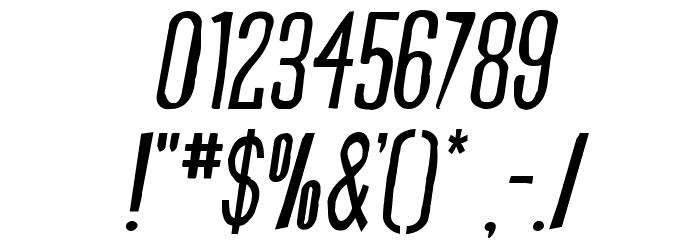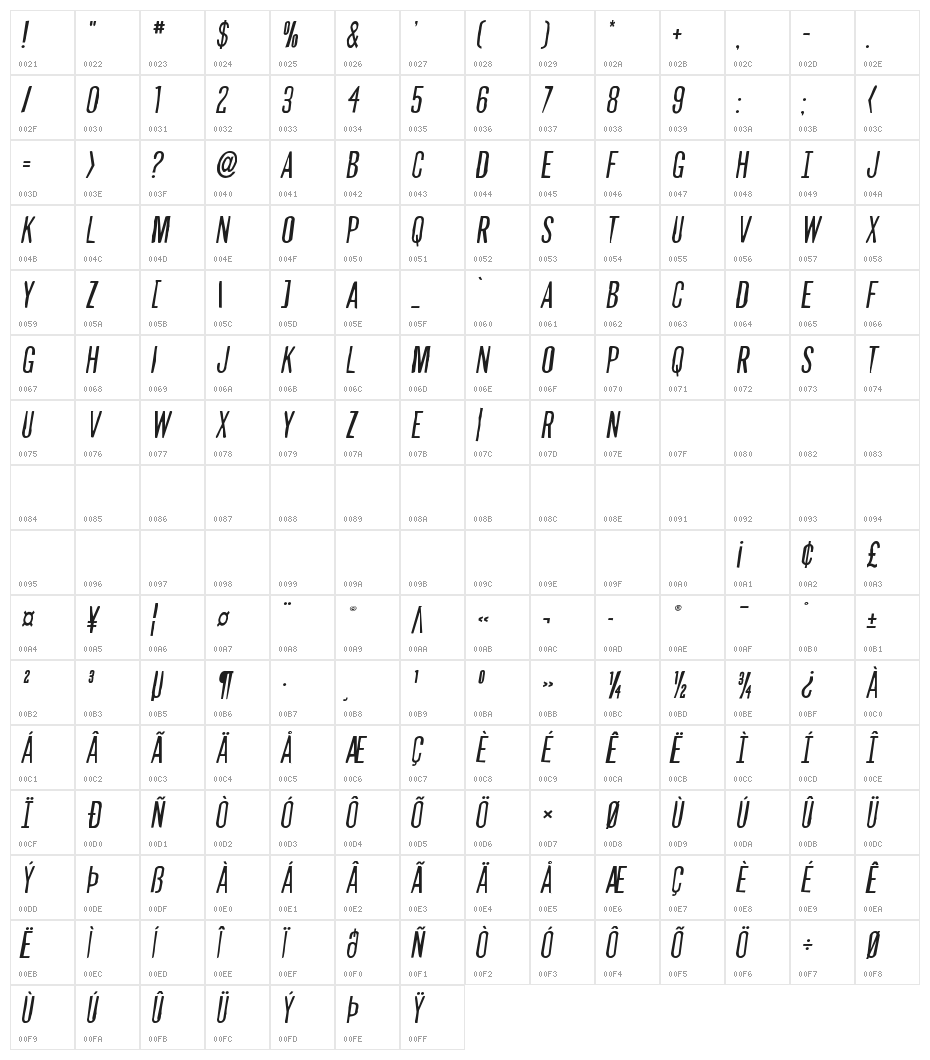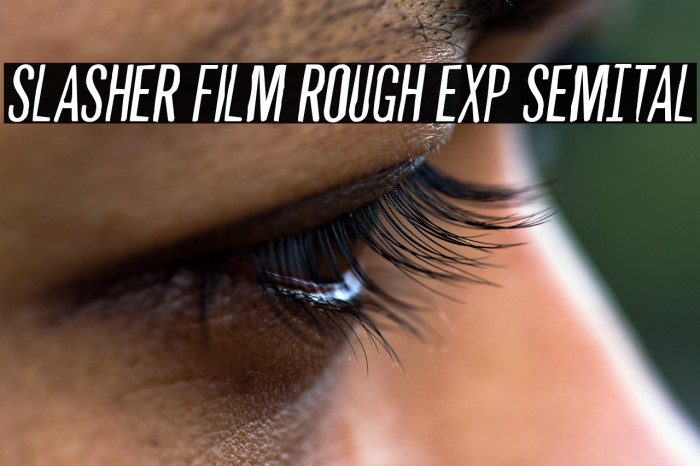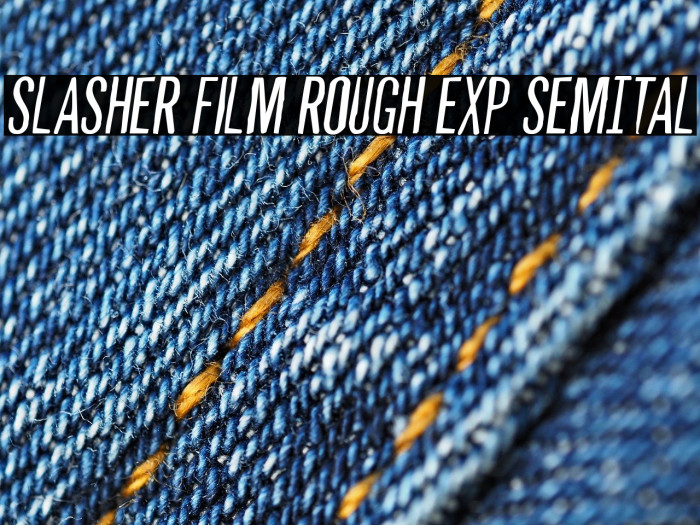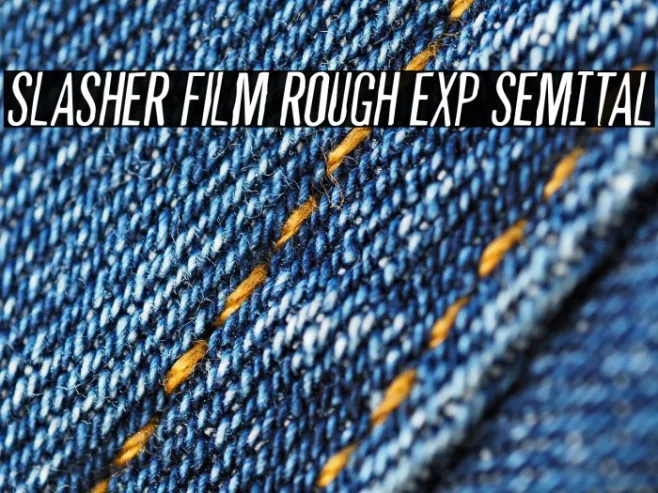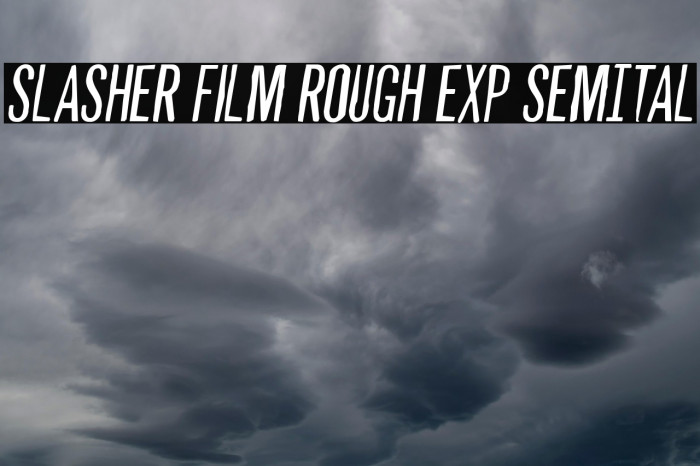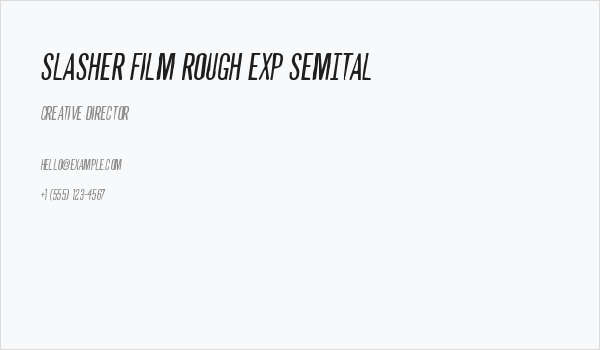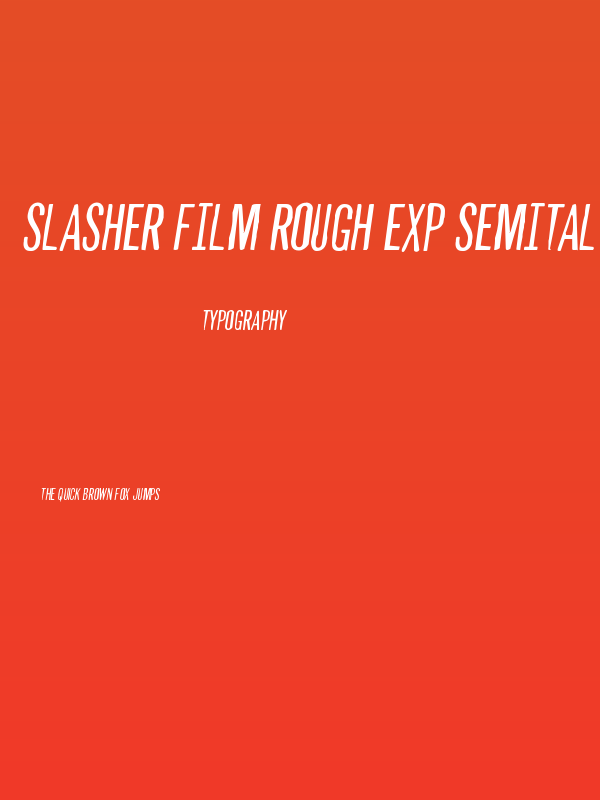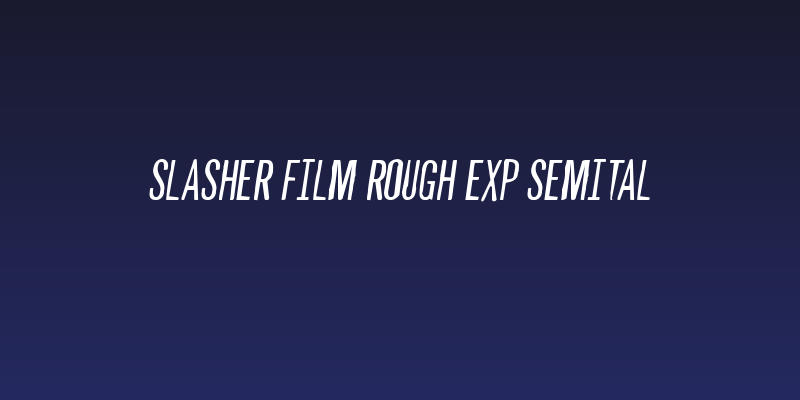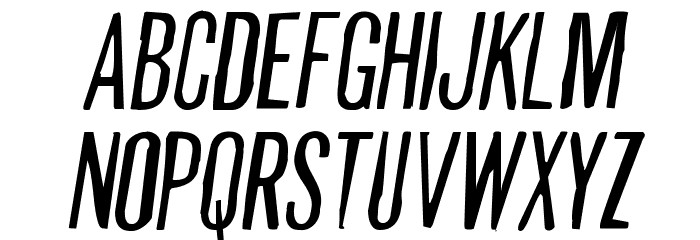
Slasher Film Rough Exp SemItal Font
Slasher Film Rough Exp SemItal Description
This font features a bold and dynamic style with a rough, hand-drawn appearance. The characters are slightly slanted, giving them a sense of movement and urgency. The uppercase and lowercase letters maintain a consistent height, while the numbers and special characters integrate seamlessly with the overall design. The strokes are uneven, adding to the rugged and edgy aesthetic. This font is ideal for projects that require a dramatic and impactful look, such as horror-themed designs or bold headlines.
| Proposed Projects | Ideal for horror movie posters, edgy branding, and dramatic headlines. |